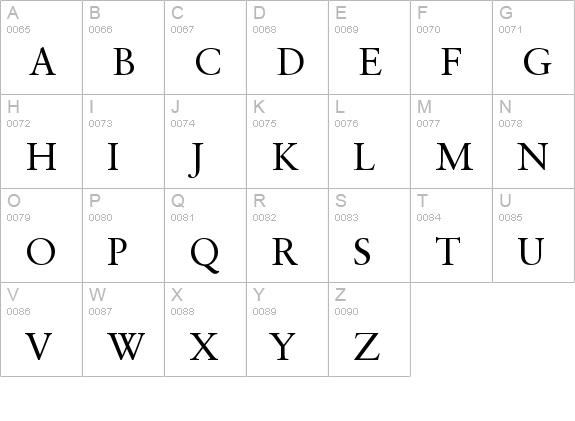
Garrick Normal is the standard, neutral variant in the Garrick typeface family \xE2\x80\x94 well suited to general body text, paragraphs, and standard typographic work.
Garrick Normal font is a versatile and modern typeface that exudes elegance and sophistication. With its clean lines and balanced proportions, this font is perfect for a wide range of design projects, from branding to editorial design. The distinctive touches of Garrick Normal font make it stand out while maintaining a sense of professionalism. The best part is that Garrick Normal font is available for free download at FontsMarket.com. This means you can easily access this high-quality font without any cost, making it a valuable addition to your font collection. Whether you're a designer working on a client project or a student looking to enhance your assignments, Garrick Normal font is a reliable choice that will elevate your work to the next level.